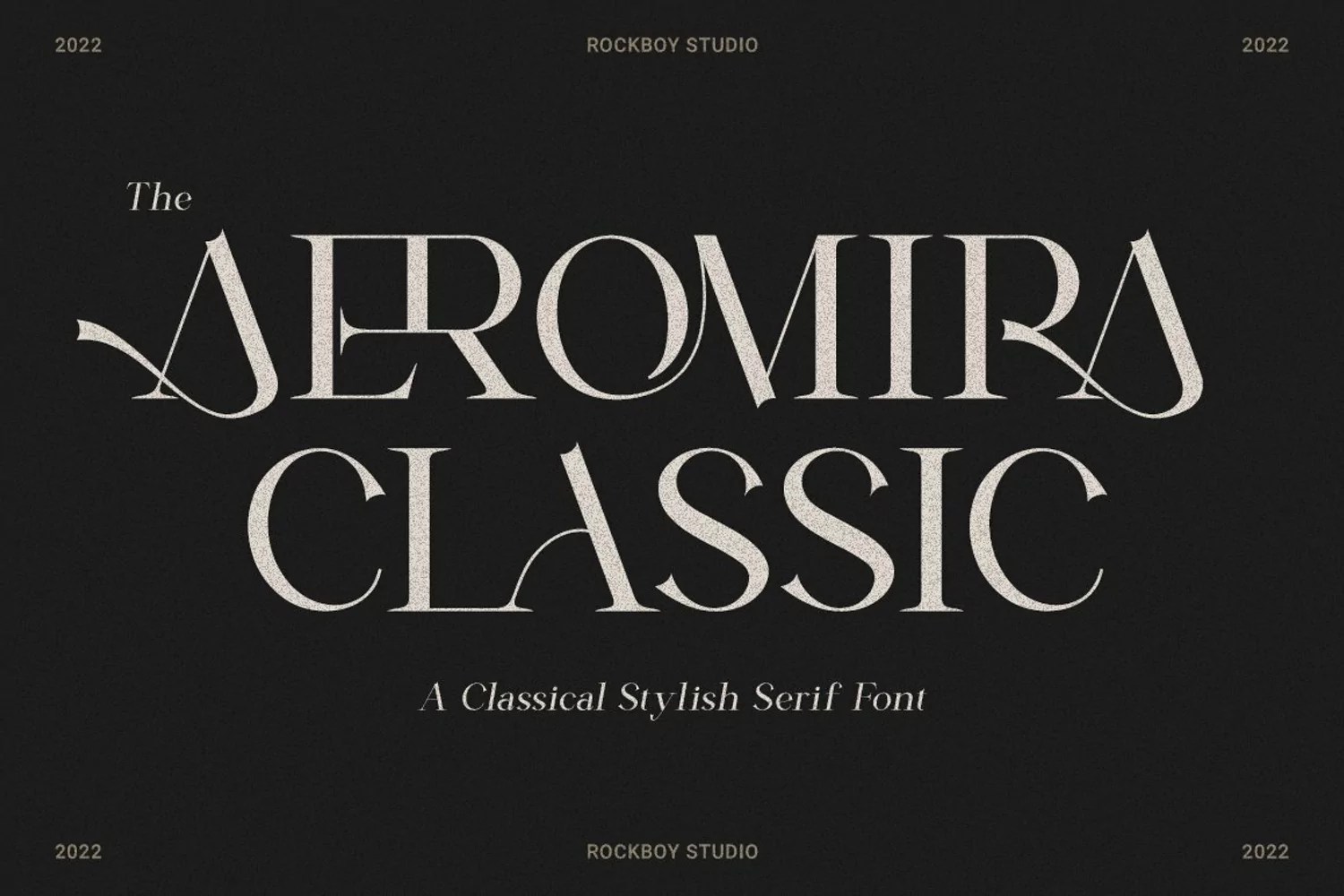
Aeromira Classic
Aeromira Classic is an elegant and thin-lettered serif font. It maintains its classy calligraphic influences while feeling contemporary and fresh. Fall in love with it and bring your projects to the highest levels!